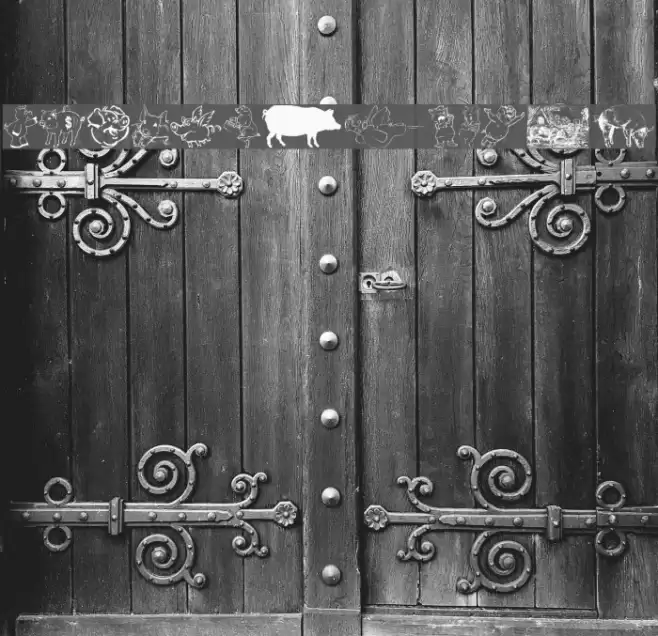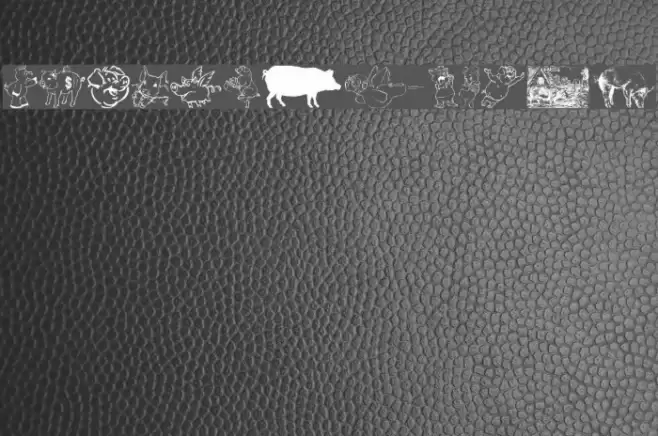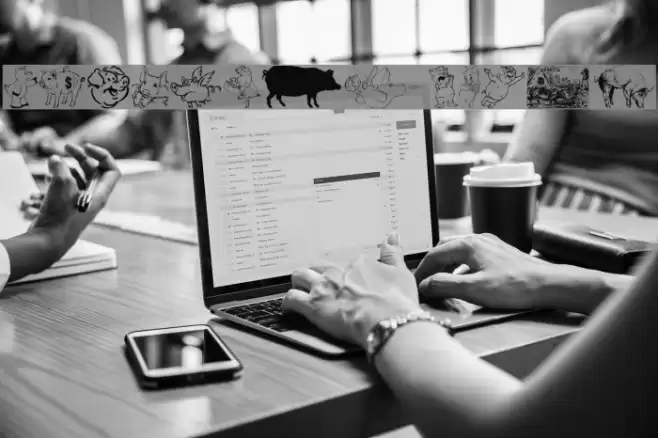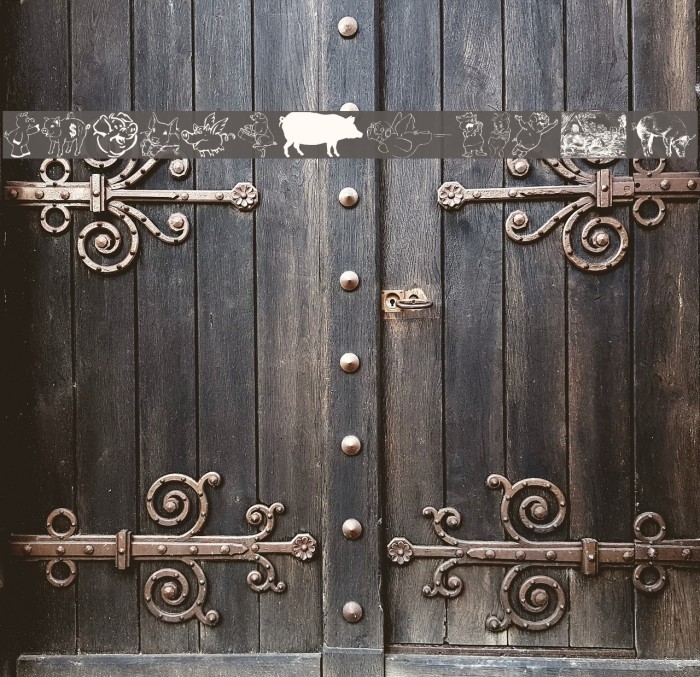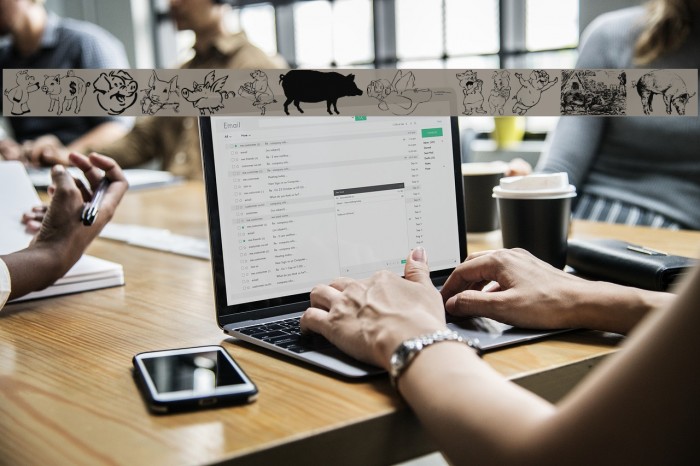
Ein Schwein Font
Ein Schwein Description
A decorative font composed of various pig-themed illustrations and cartoon drawings, each character represented by a unique pig or farm-related image. The style is playful and whimsical, with a hand-drawn, sketch-like quality.
Pig-themed decorative font with playful illustrations from Uncategorized fonts.
- Proposed Projects: Children’s books, farm event posters, educational materials, themed party invitations, playful branding.
- Overall Style: Whimsical, Playful, Decorative
- Use Case: Logos, Posters, Headlines, Themed Graphics